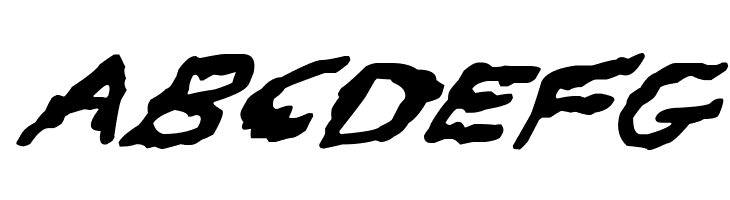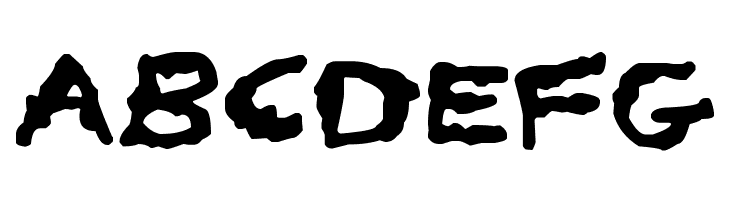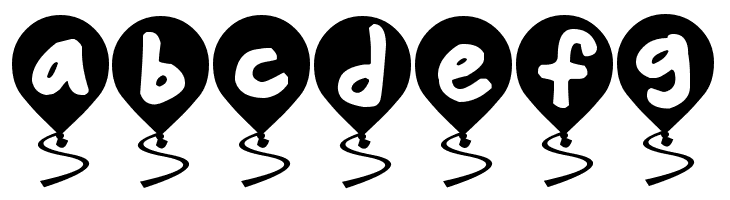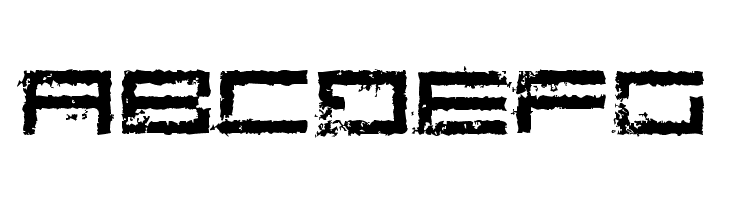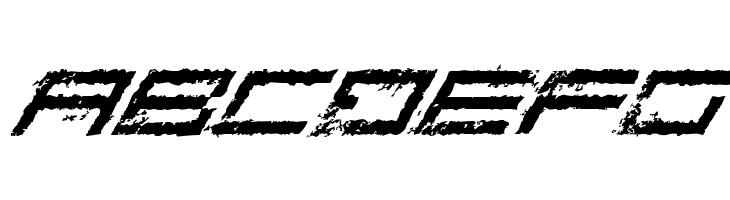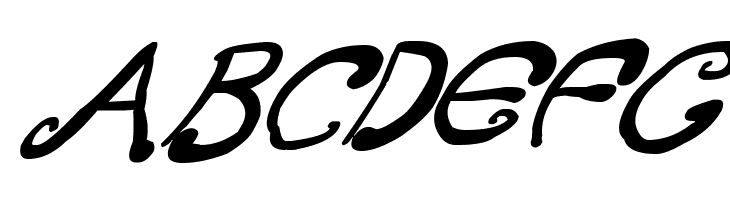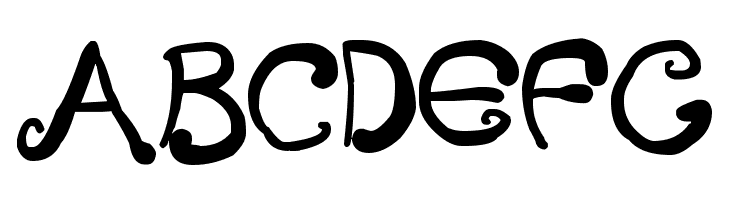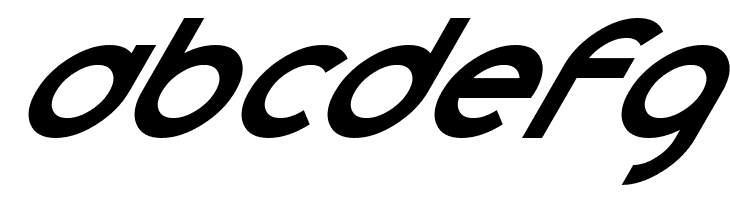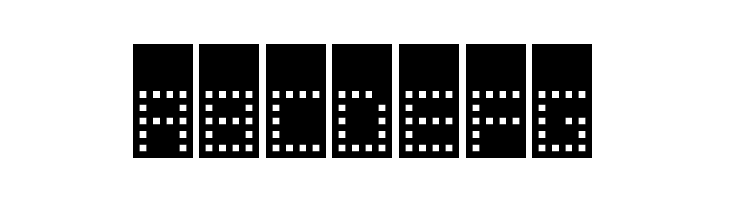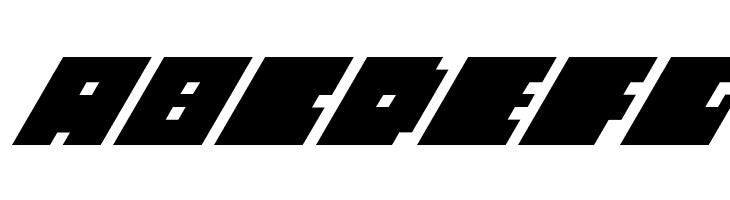
A bold, italic font with a textured, hand-drawn appearance.
A bold, rugged font with an organic, ink-blot appearance.
A playful, balloon-themed font with bold, rounded characters and a whimsical style.
A distressed, futuristic font with a bold, industrial aesthetic.
A distressed, italicized font with a futuristic, mechanical style.
A creepy, scrawled italic font with bold, fluid strokes.
A whimsical and eerie font with playful, hand-drawn characters.
A smooth, circular italic font with a modern and dynamic style.
A modern, circular font with a smooth and balanced design.
A digital, dot-matrix style font with a modern and futuristic look.
Bold, italicized font with a tower block design and square cutouts.
A bold, blocky italic font with a dynamic, retro-inspired style.
A bold, geometric font with a strong, industrial aesthetic.
A dynamic, italicized font with a futuristic and sleek design.
A bold, geometric font with a futuristic and digital style.
A futuristic, geometric font with sharp angles and a bold presence.
A futuristic, angular italic font with a dynamic and modern style.
A bold, italic, hand-drawn font with textured strokes and a dynamic style.
A sketch-like, hand-drawn font with dynamic and textured strokes.
A fluid and dynamic handwritten font with slanted, connected letters.
A playful, handwritten-style font with bold, smooth strokes and a casual vibe.
A playful, handwritten-style font with bold, rounded characters.
A bold, ink-splatter style font with dynamic, hand-drawn strokes.
A bold, ink-splattered font with a chaotic and artistic style.
A bold, pixelated font with a geometric, retro video game style.
A bold, geometric font with uniform stroke width and strong presence.
A bold, italic font with a dynamic and modern style.
A bold, italicized font with a futuristic and angular design.
A bold, geometric font with a futuristic and industrial design.
A futuristic, angular font with sharp edges and geometric shapes.
A futuristic, angular italic font with sharp edges and a dynamic style.
A futuristic, geometric font with sharp angles and a cohesive block-like structure.
A dynamic, italicized font with a futuristic and angular design.
A futuristic, angular font with a sleek, italicized design.